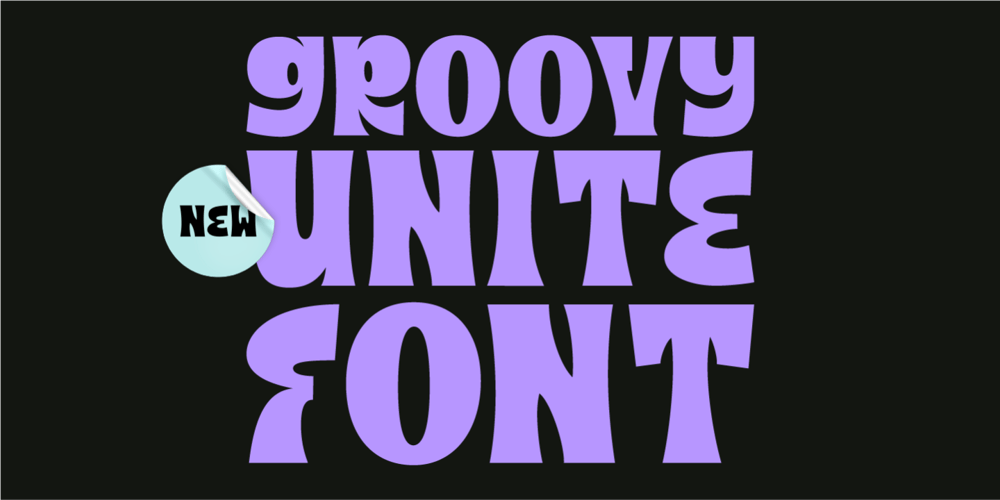
GF Unite Font Family was designed by Ahmad Ginanjar Riyadi and published by Groovy Font. GF Unite contains 1 styles and family package options. Groovy Unite is a font that combines a modern touch with a groovy aesthetic, resulting in a unique typeface that exudes a retro-cool feel.With its resemblance to a sans serif font, this groovy font creates a balance between vintage appeal and contemporary design.Perfect for adding a touch of nostalgia with a modern twist, Groovy Unite is ideal for a variety of creative projects that want a mix of retro and contemporary styles.What’s you’ll get : – Uppercase, Lowercase, Numeral, Punctuation & Multilingual.For any questions please contact me 🙂Thank You !